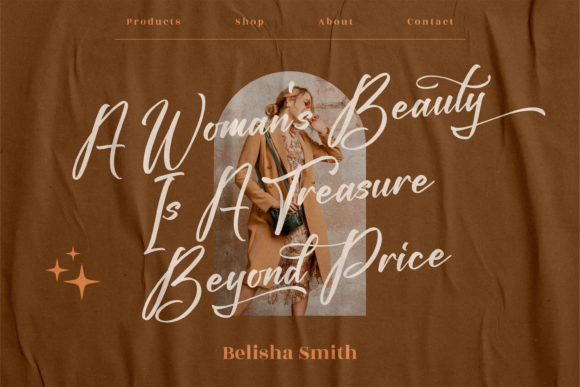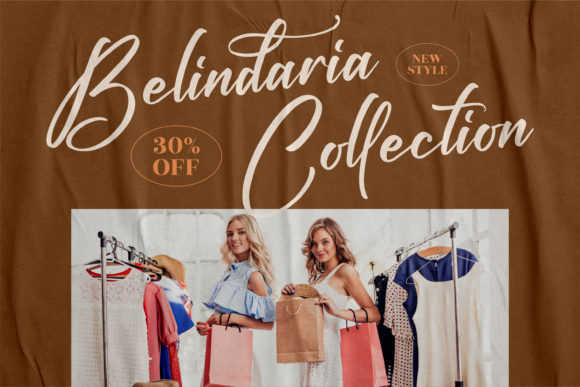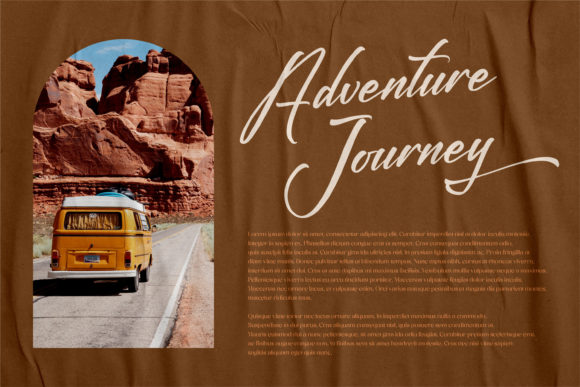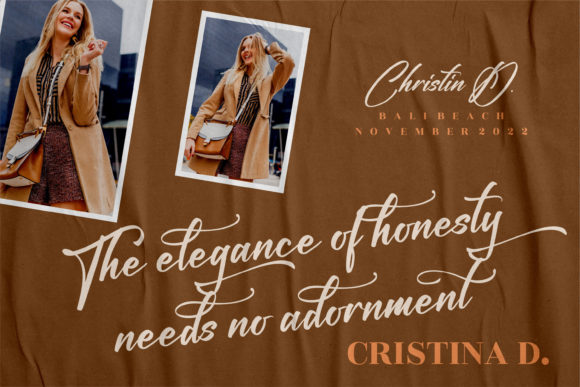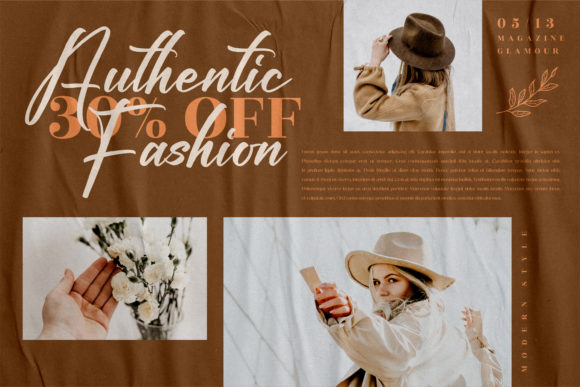
About Fighterland Script Font
Fighterland Script is a lovely and stylish script font that exudes elegance and class. This font was particularly crafted for those who need a beautiful and refreshing look to their designs.